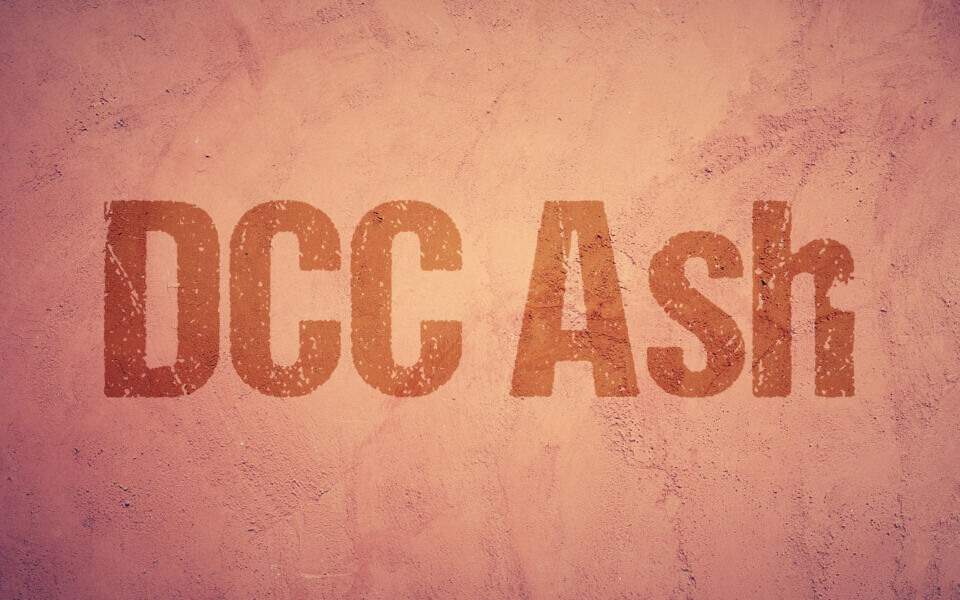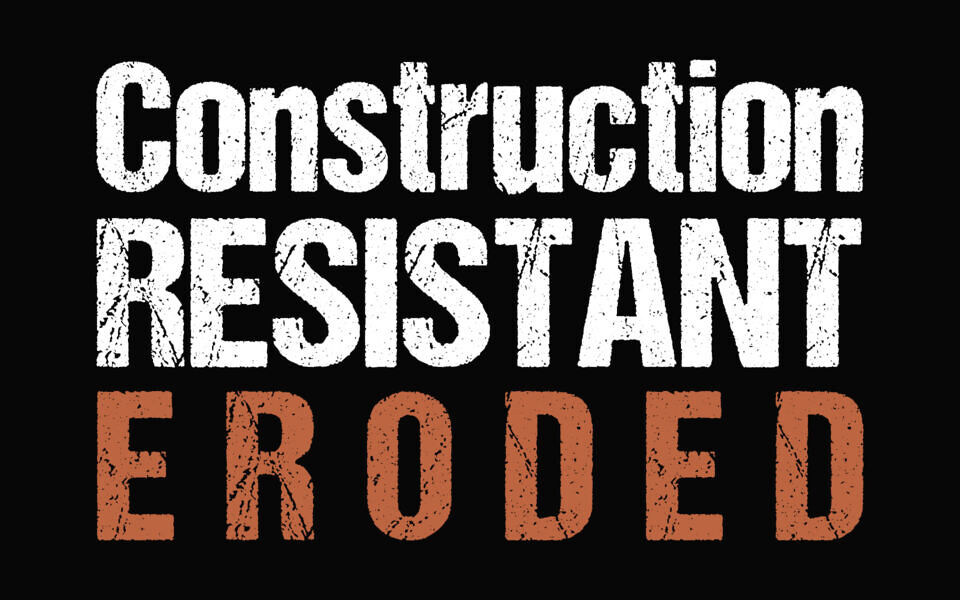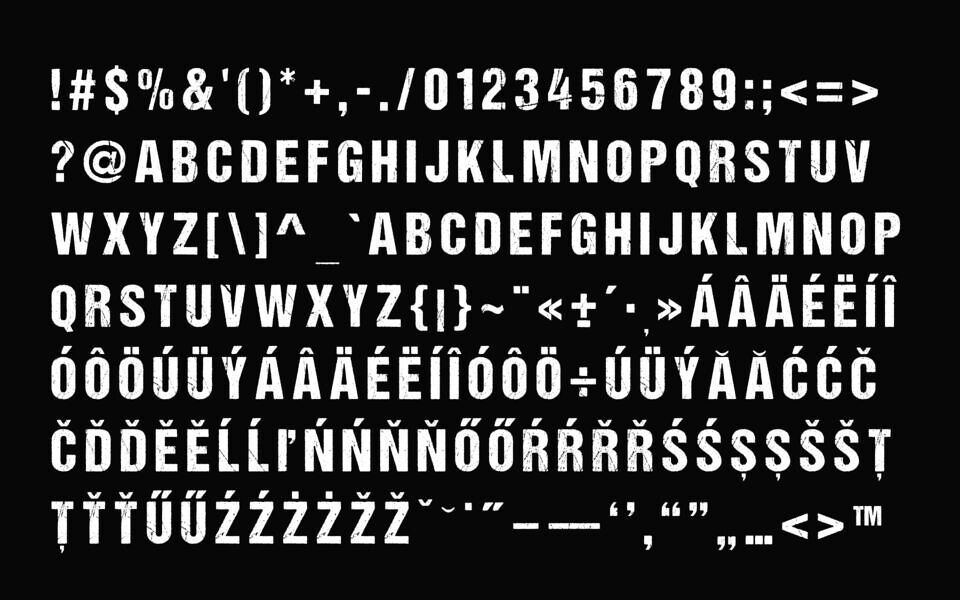
DCC Ash is a bold, striking display typeface designed by dccanim. This condensed font features a heavily textured, distressed, and weathered aesthetic that mimics crumbling stone or volcanic ash.
Its rugged, gritty character makes it exceptionally well-suited for gaming graphics, intense action movie posters, heavy metal album covers, and grunge-inspired designs.